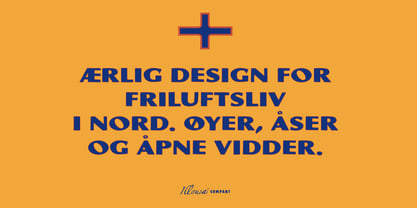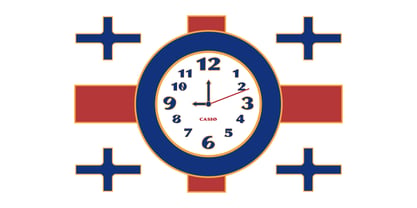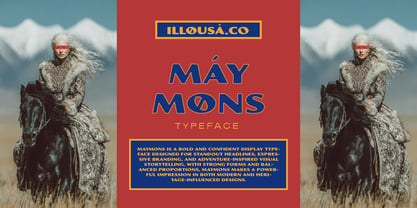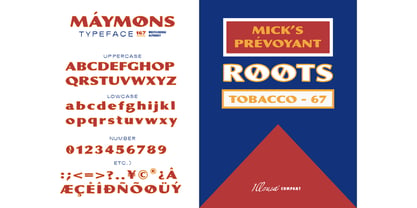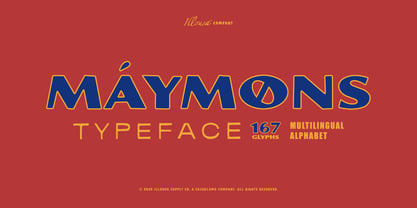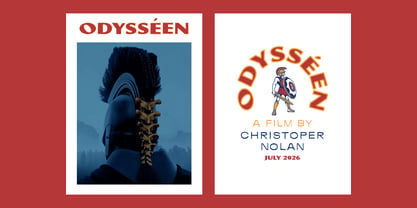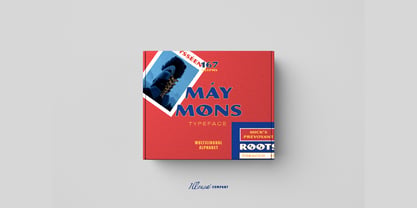
SCC Maymons
by Illousa Supply Co
The SCC Maymons Font Family was designed by Ilham Afrora and published by Illousa Supply Co. SCC Maymons contains 1 styles. More about this family
SCC Maymons Bold Sans Serif Font is a bold and confident display typeface crafted for standout headlines, expressive branding, and adventure-inspired visual storytelling. Featuring strong forms and balanced proportions, Maymons leaves a powerful impression in both modern and heritage-influenced designs. Designed for clarity and impact, this typeface excels across a variety of creative projects. Its solid structure and clean geometry ensure excellent readability while maintaining a distinctive, character-driven aesthetic. Maymons is ideal for designers seeking to create work that feels strong, intentional, and visually memorable. KEY FEATURES : 1) Bold display sans serif style, 2) Strong, confident letterforms, 3) Clean and versatile design with heritage influence, 3) High readability for headlines and branding, 4) Uppercase & lowercase letters, 5) Numerals & punctuation, 6) Multilingual support, 7) Suitable for print and digital use PERFECT FOR: 1) Logos & brand identity, 2) Bold headlines & titles, 3) Posters, signage & packaging, 4) Apparel & merchandise, 5) Editorial layouts, 6) Websites & social media graphics, 7) Creative and professional design projects COMPATIBILITY: Works seamlessly with most major design software, including: Adobe Illustrator, Adobe Photoshop, Adobe InDesign, Figma, Canva, Affinity Designer etc, and Compatible with both Mac & Windows.
Designers: Ilham Afrora
Foundry: Illousa Supply Co